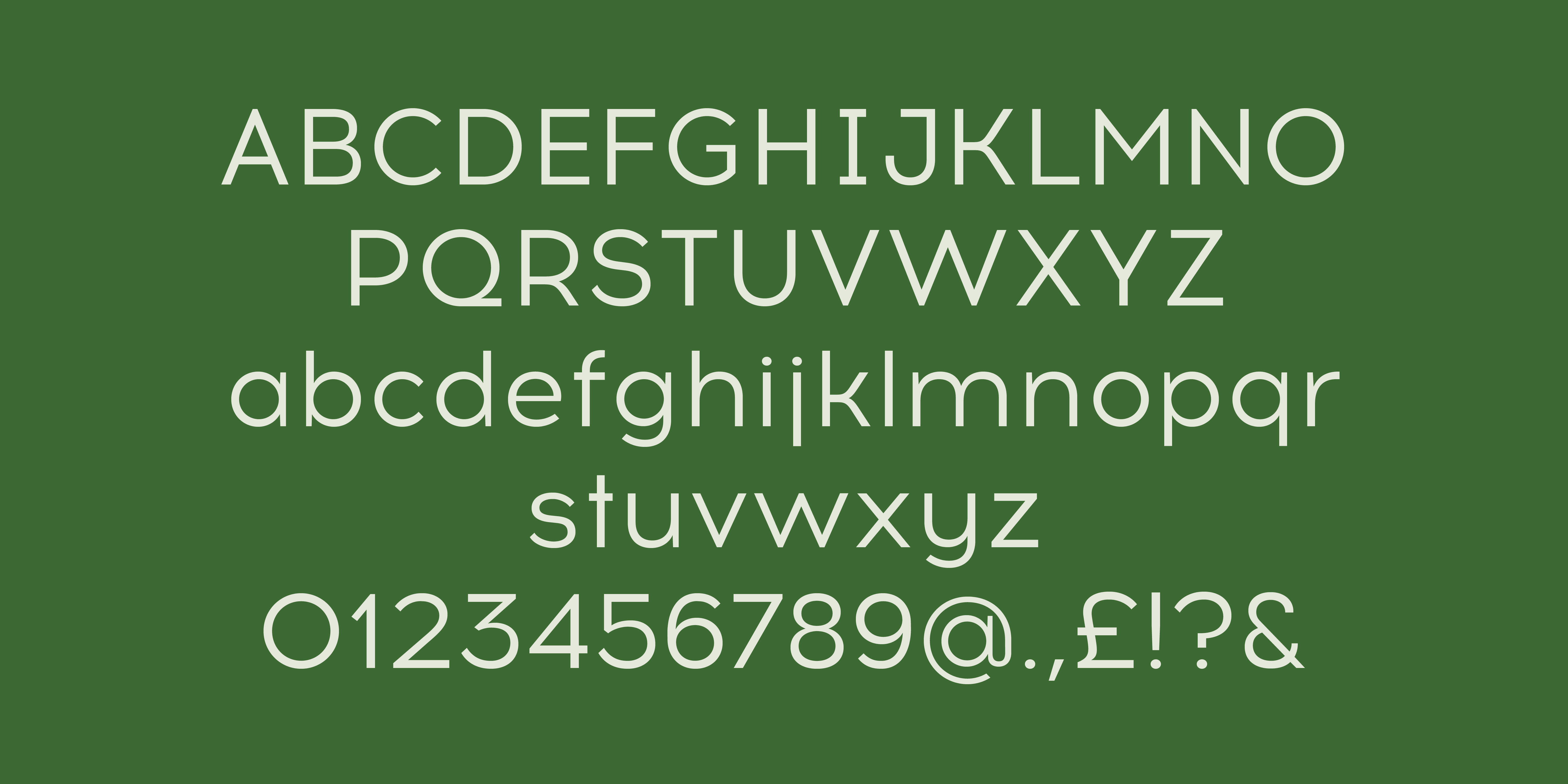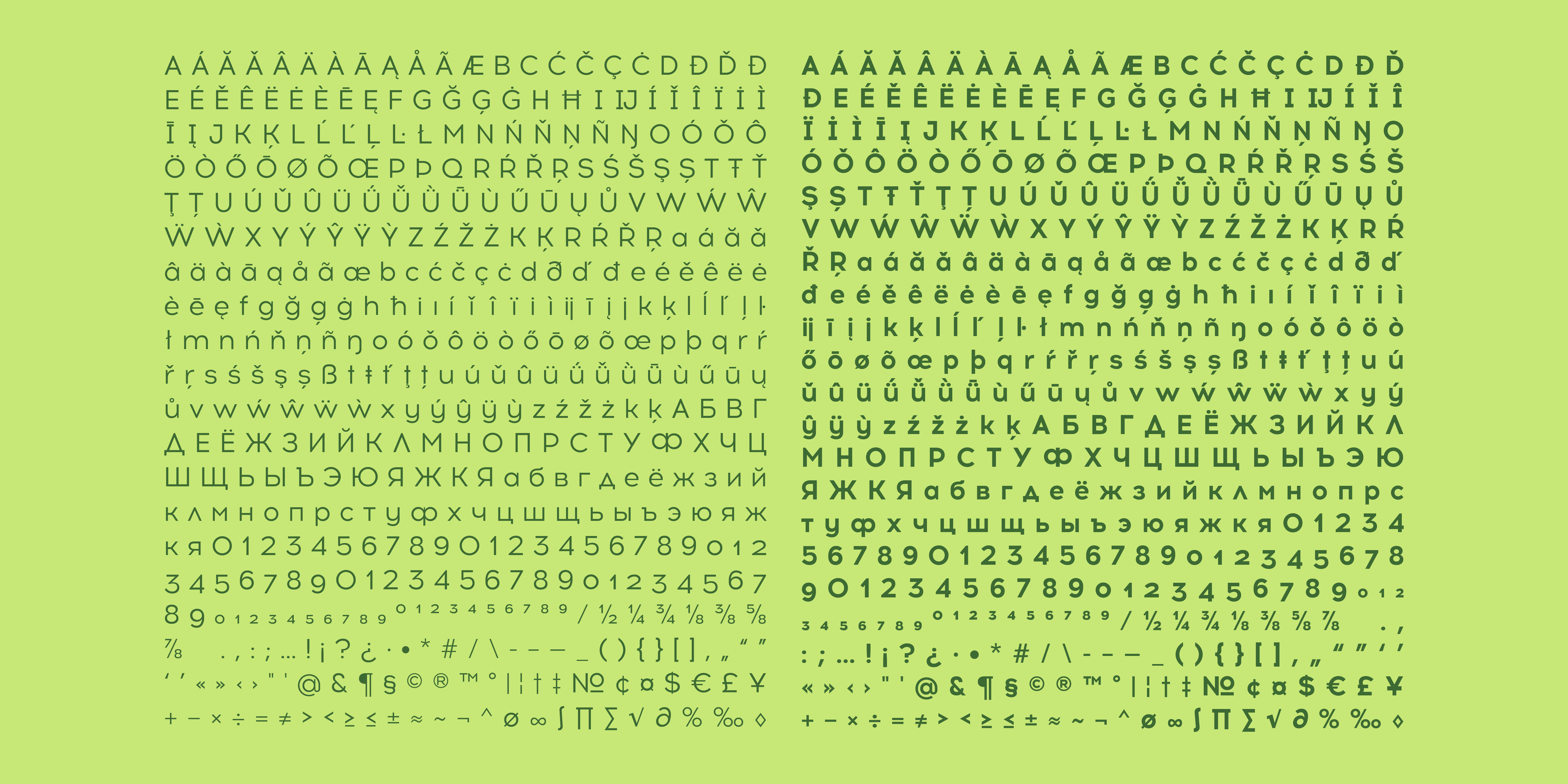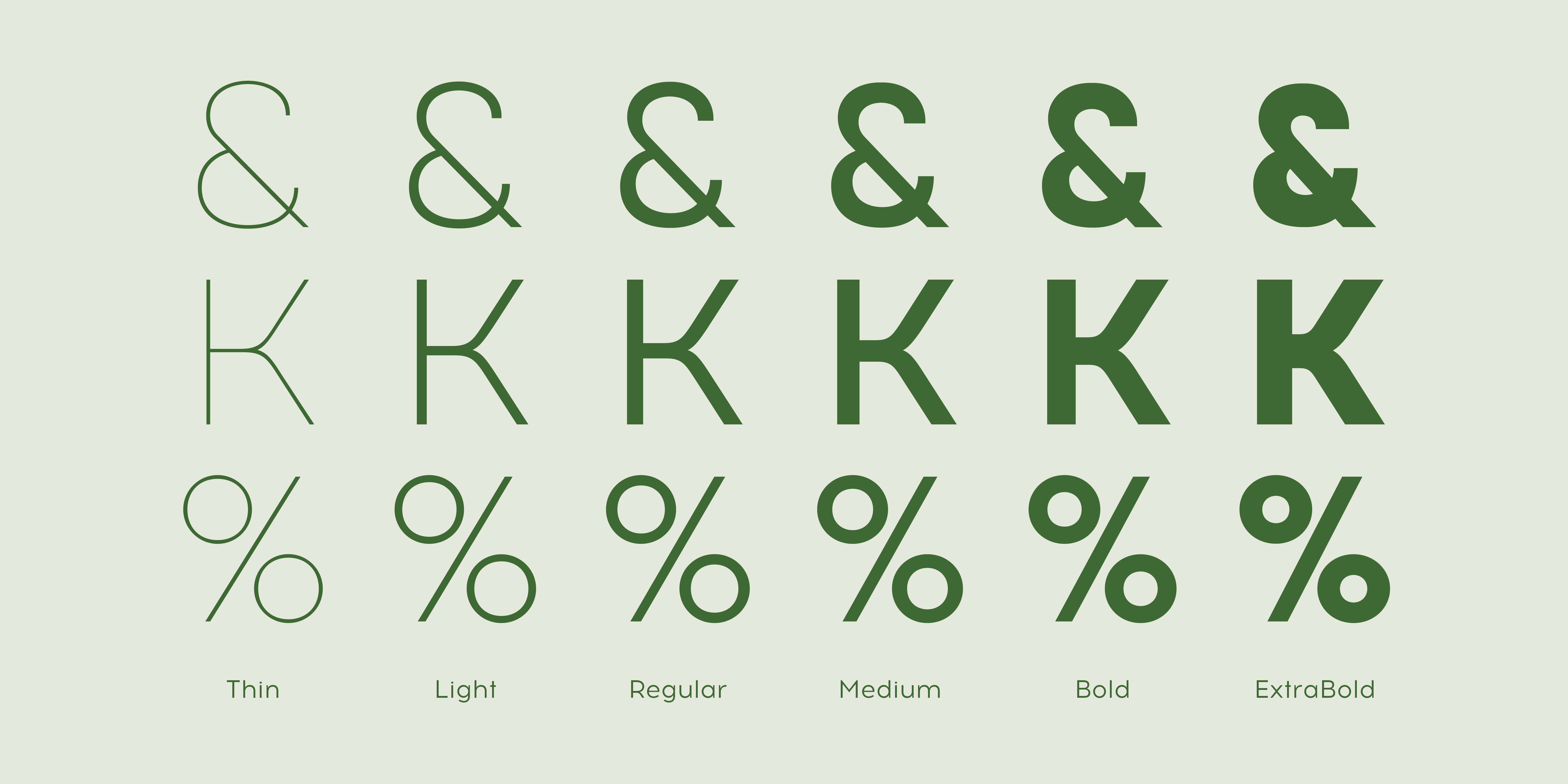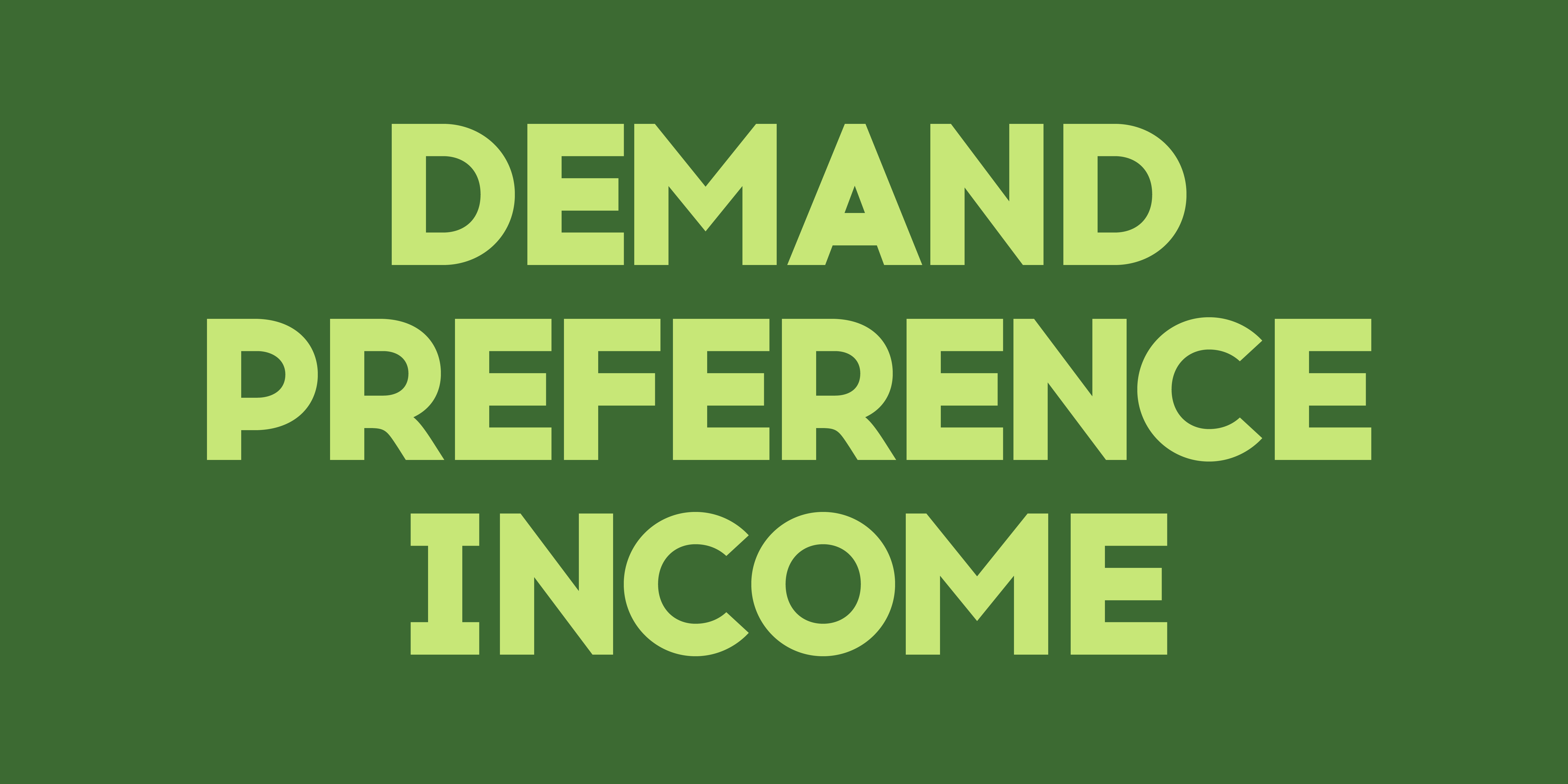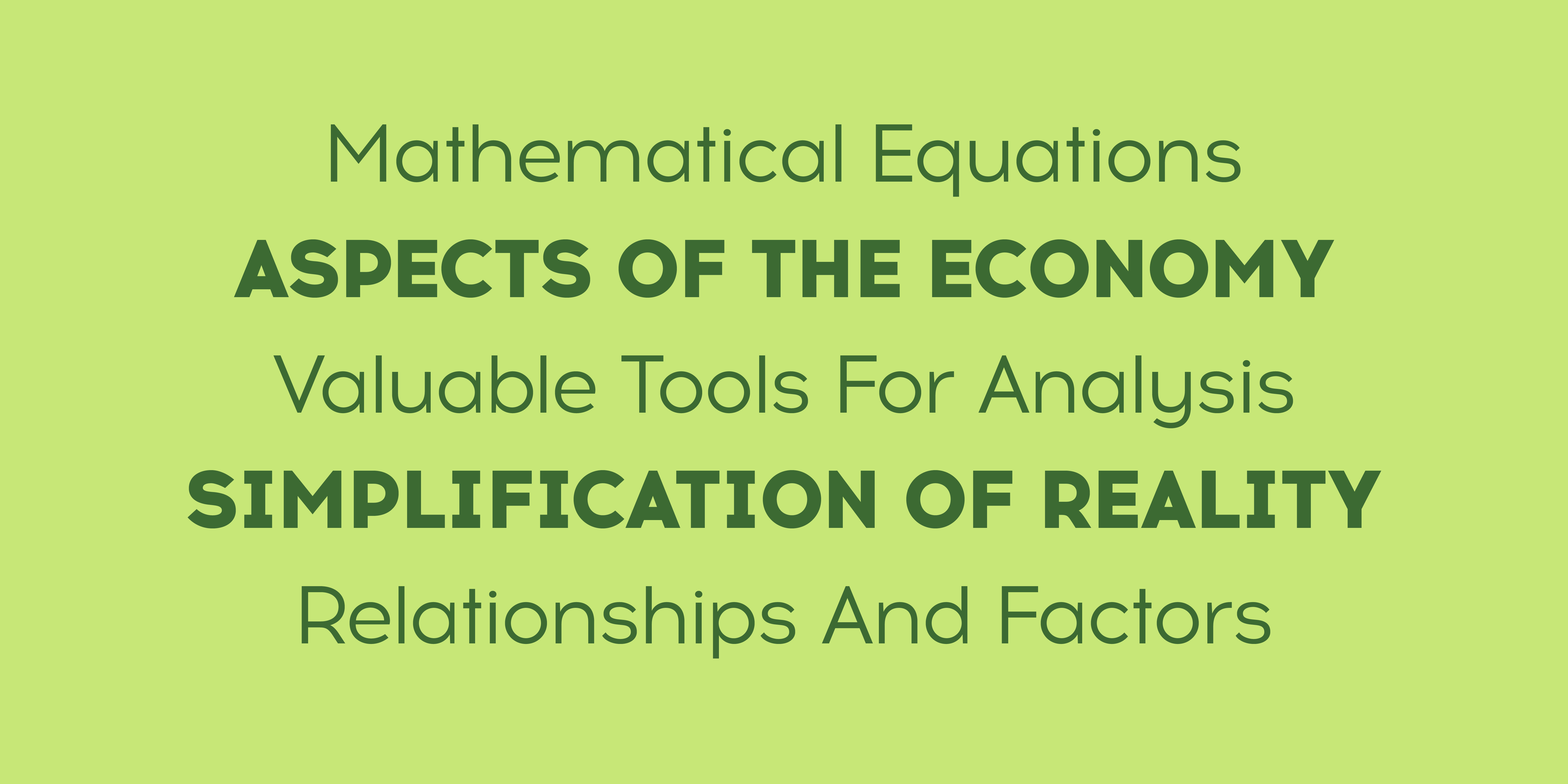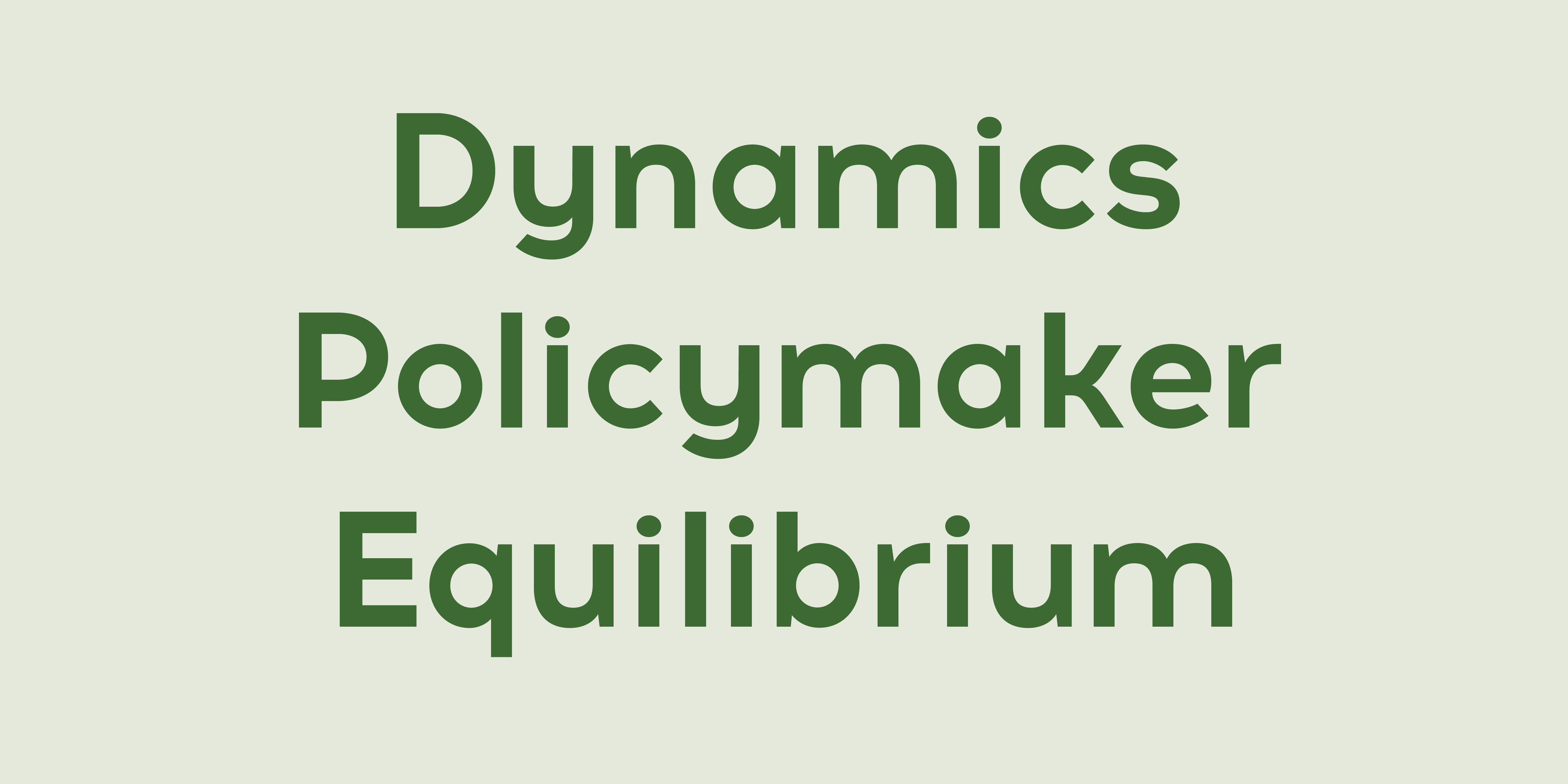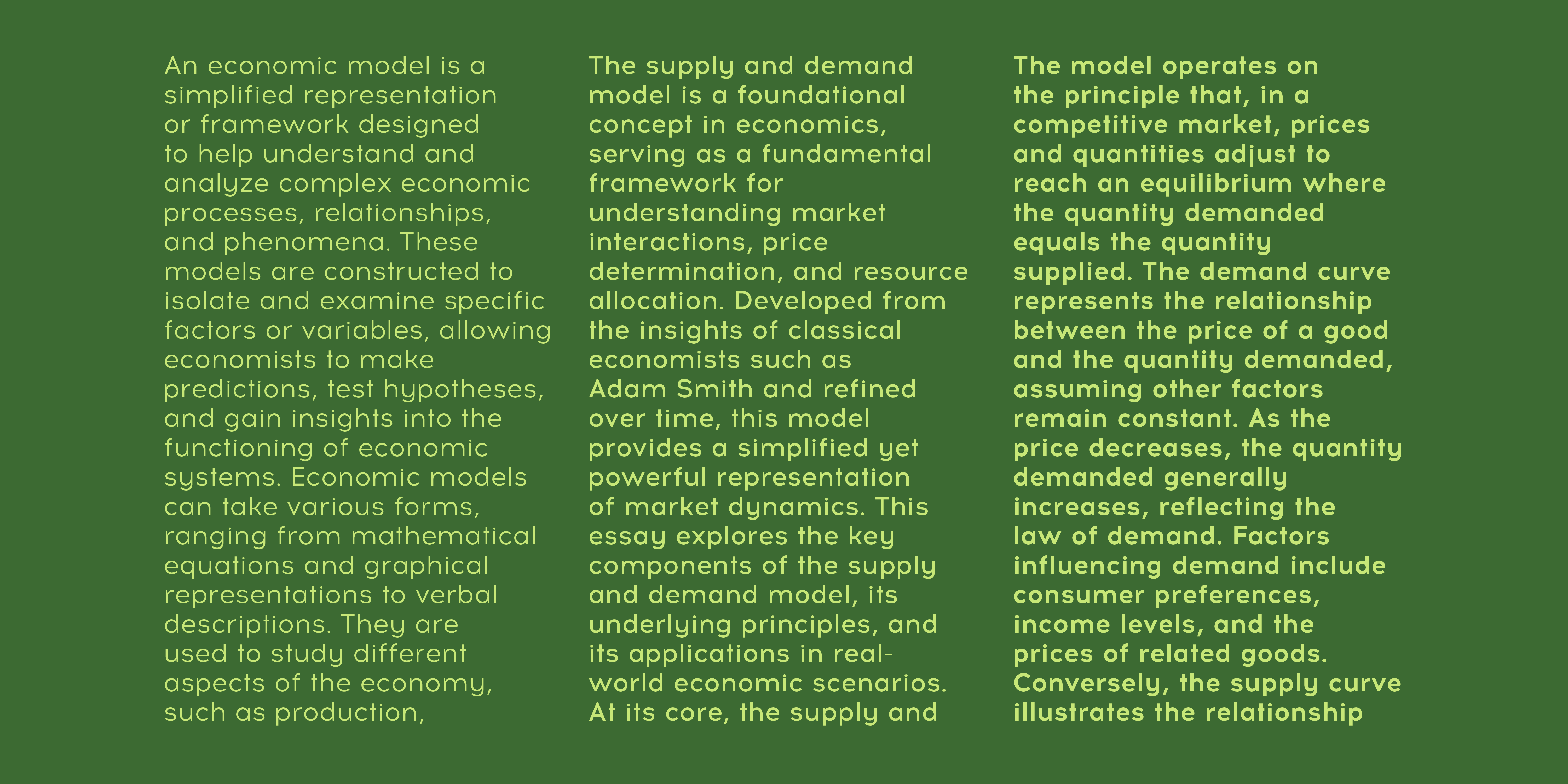
Acrom
About Acrom
Acrom is a geometric sans serif typeface with a minimal stroke contrast. It was designed with a modern, contemporary context in mind. Acrom is not merely mechanical, it can also be recognised as a natural typeface with subtle geometric aesthetics. The humanist quality of the font aids legibility across both text and display work. Acrom’s main characteristics lie in the injection of stylistic forms that enhance its individuality without overpowering the font’s functional purpose and integrity. The font can be tamed utilising the set of alternative characters available within the typeface. Details include 500 characters, manually edited kerning and Opentype features.